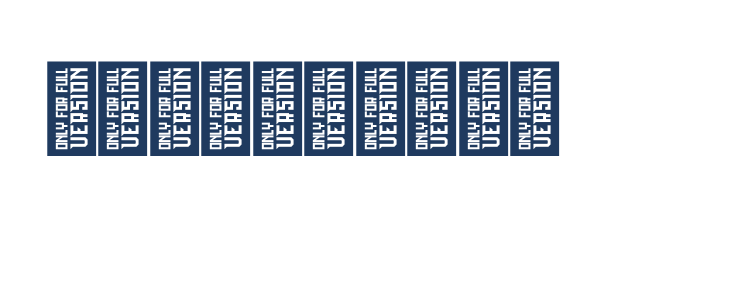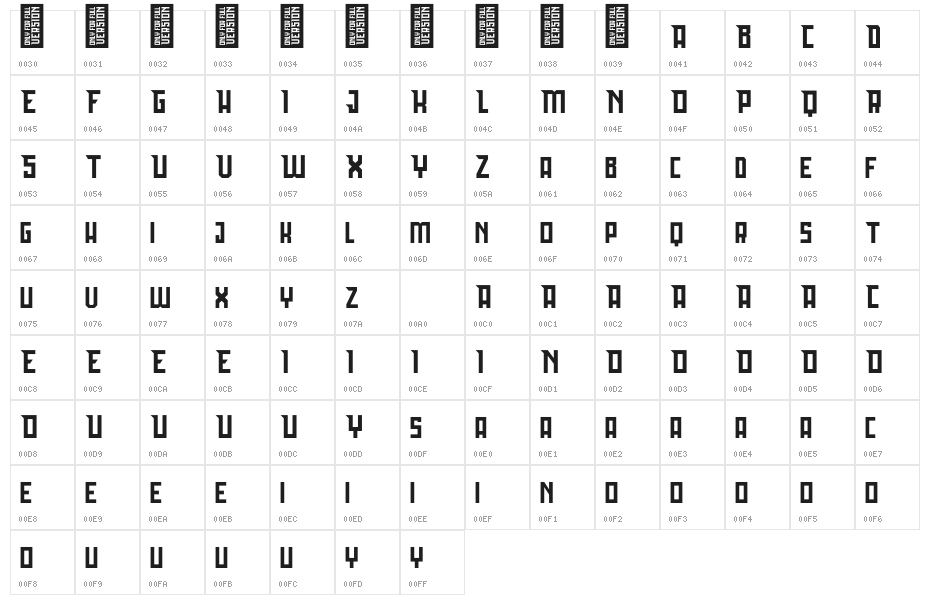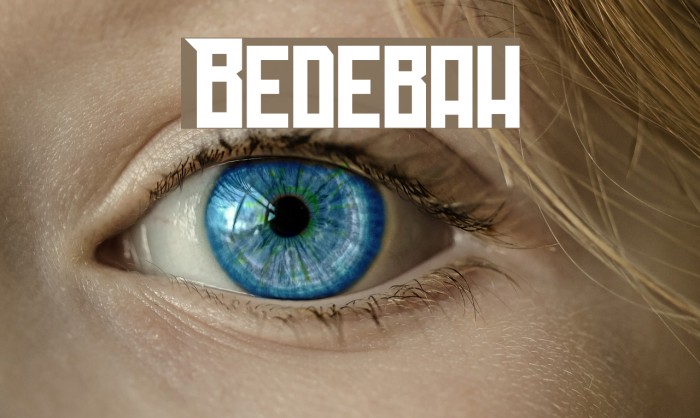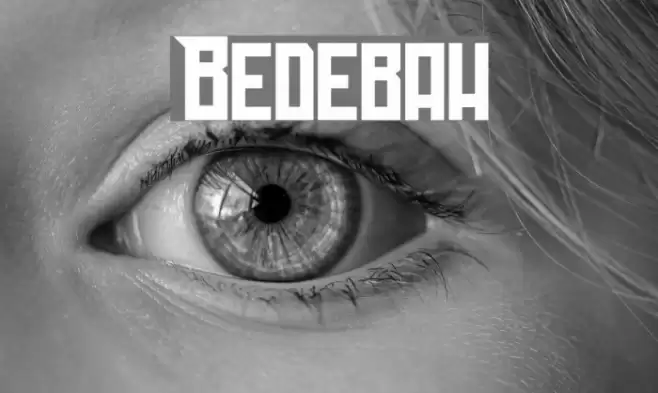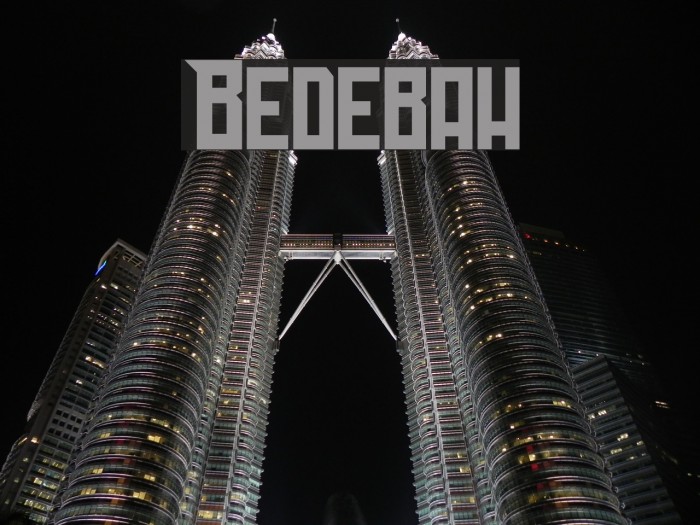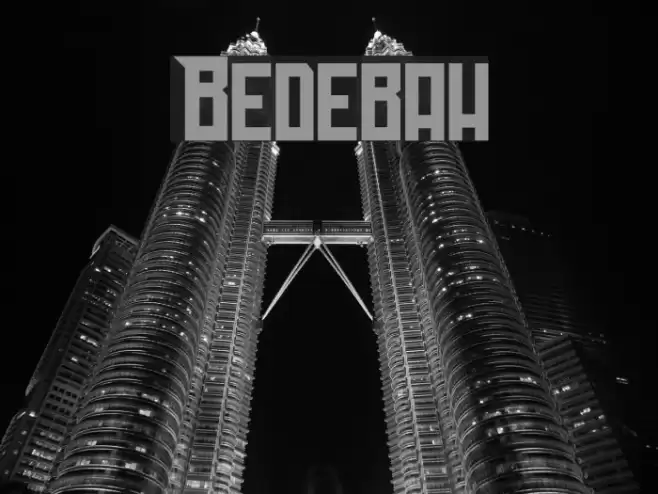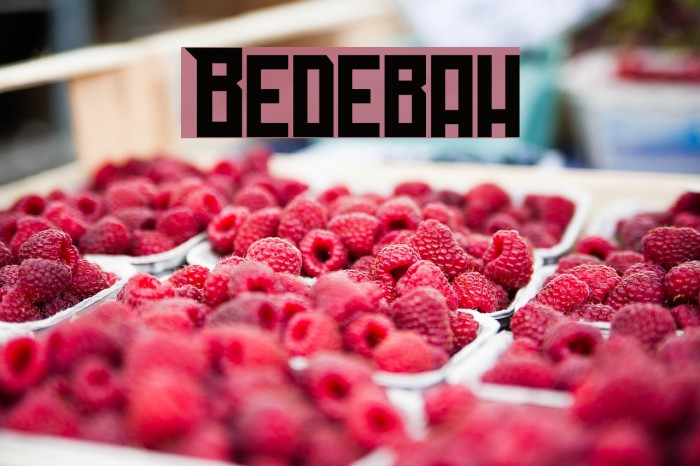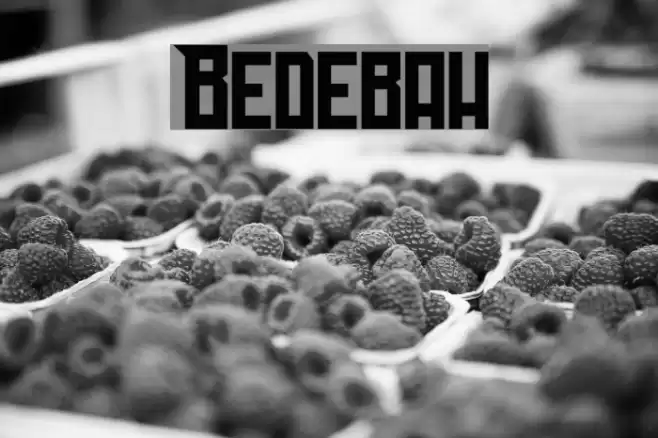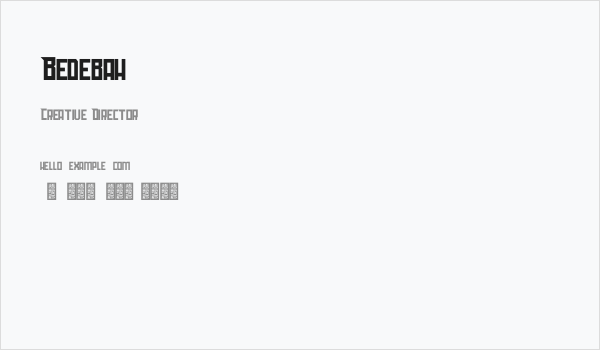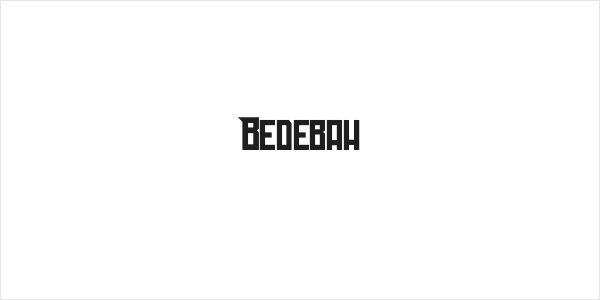
Bedebah Font
Bedebah Description
This font features a bold and geometric design with sharp, angular edges and a strong presence. The uppercase letters are uniform in height, creating a cohesive and structured appearance. The strokes are thick and consistent, contributing to a sense of stability and strength. The font's style is reminiscent of industrial or futuristic themes, making it suitable for projects that require a modern and impactful look. The characters are tightly spaced, enhancing the boldness and making it ideal for attention-grabbing headlines or titles.
Proposed ProjectsIdeal for branding, posters, headlines, and any design requiring a strong, modern aesthetic.